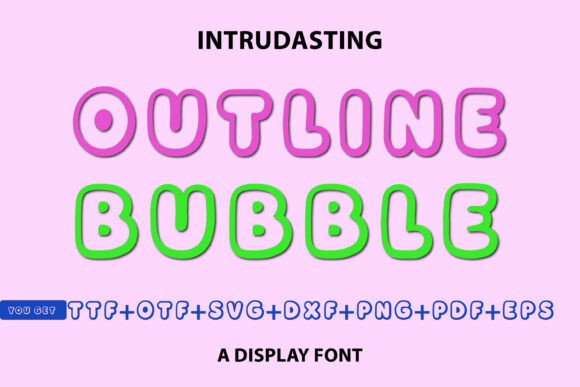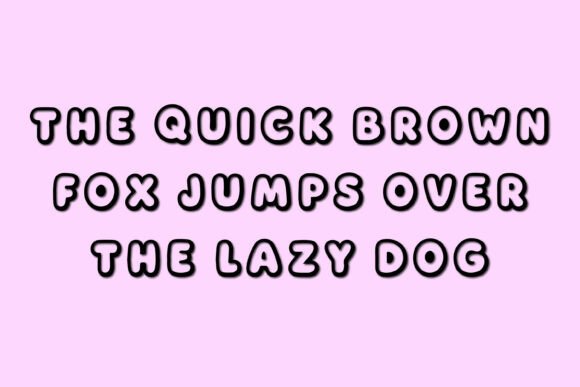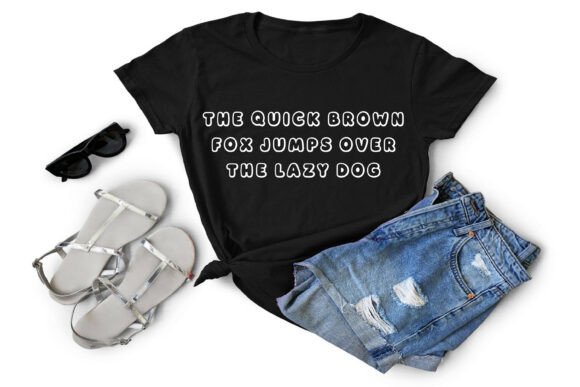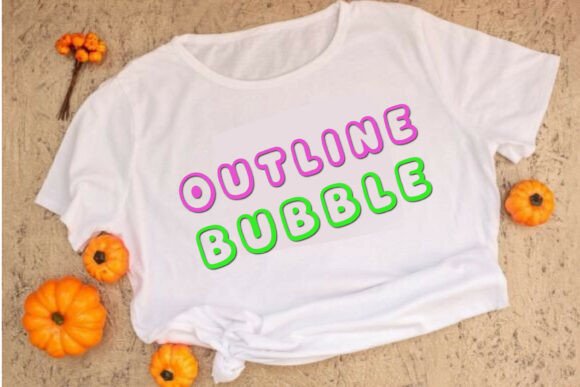
Outline Bubble Font
About the Outline Bubble Font
Get ready to be inspired by Outline Bubble Font, a fresh and dynamic typeface for modern creators. Introducing a vibrant splash to your creative projects, our color font embodies joy and whimsy that is bound to elevate your design endeavors. An absolute fit for branding initiatives, packaging designs, riveting logotypes, and gripping headlines, it also adds a sprinkle of charm to wedding invitations and similar creatives. Embrace and experience the transformative power of this uplifting font in your designs.
Its playful, rounded forms make it ideal for projects needing a friendly and approachable feel. Consider it for children’s books, playful branding for food or toy companies, or eye-catching posters for events targeting a younger demographic. Avoid using it for large blocks of body text or UI elements; its whimsical nature can hinder readability in extended use.
Pairing it with a clean sans-serif like Helvetica Neue for body copy creates a balanced contrast, or a classic serif like Garamond for a more sophisticated touch. For a bolder statement, a geometric sans-serif such as Futura would provide a modern counterpoint. Avoid pairing it with other highly decorative fonts, as this could create visual clutter.
The Outline Bubble Font’s core personality is undeniably cheerful and youthful, making it a great choice for brands wanting to project happiness and approachability. Its boldness ensures high visibility, ideal for headlines and logos, but its limited versatility means it works best as a supporting, rather than primary, font in most applications.
Outline Bubble Font Usage Examples
Outline Bubble Font Example